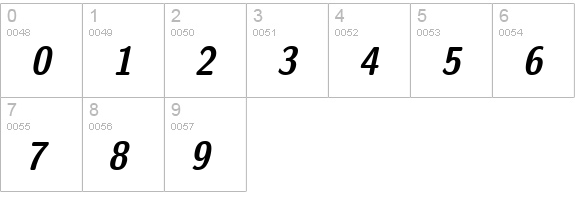
Nova Bold Oblique is a strong, high-contrast, italic variant in the Nova typeface family \xE2\x80\x94 well suited to headlines, attention-grabbing titles, and strong calls-to-action.
The Nova Bold Oblique font is a versatile and modern typeface that combines boldness with elegance. Its slanted italic style adds a touch of sophistication to any design project, making it perfect for headings, titles, and emphasis. With its strong and dynamic appearance, Nova Bold Oblique commands attention and conveys a sense of authority. This font is ideal for branding, advertising, and editorial design where a bold and impactful statement is needed. Best of all, Nova Bold Oblique is available for free download at FontsMarket.com. This means that you can access this high-quality font at no cost, making it a valuable asset for your creative projects. Whether you are a designer, marketer, or content creator, Nova Bold Oblique offers a bold and stylish option to elevate your typography and make a lasting impression. Download this font today and unleash its power in your designs.